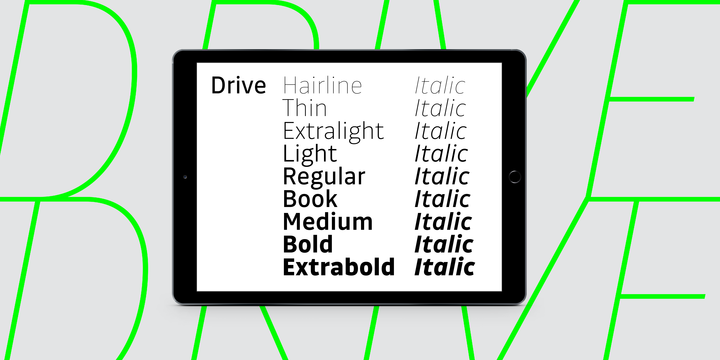
Drive Font Family
Today befonts continue to introduce to you a sans-serif font family new. Drive Font Family is designed by Black Foundry. Drive is our first release. It offers space-saving corporate sans-serif yet with a humanist touch. With its substantial glyph coverage — more than 500 glyphs including arrows, diacritics, fractions — Drive is suitable both for print and screen applications. It is tuned for text at smaller sizes both but its extreme weights make it also a perfect fit for headlines.